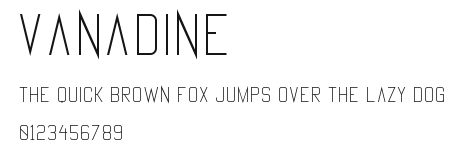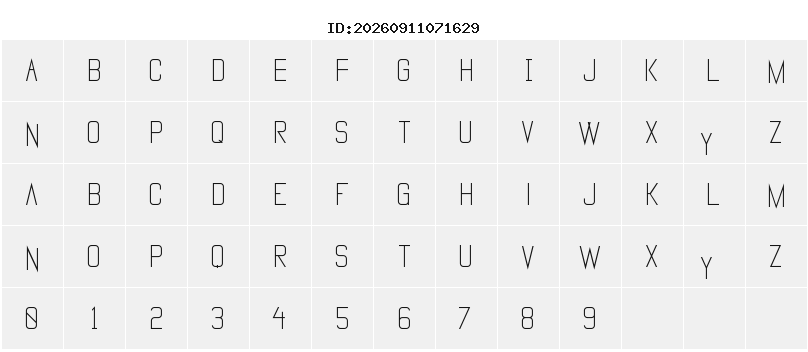
Vanadine Preview
• Font Name: Vanadine
• Font Style: Gras
• Full Font Name: Vanadine Bold
About Vanadine.ttf
Vanadine.ttf is a modern, elegant sans-serif font designed for ultimate readability and visual harmony. Perfect for branding, headlines, web design, and print materials.